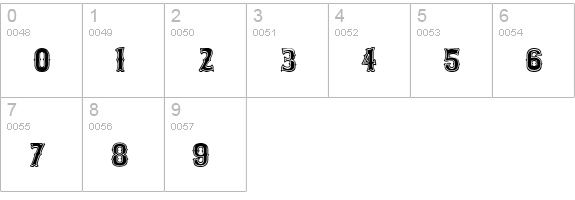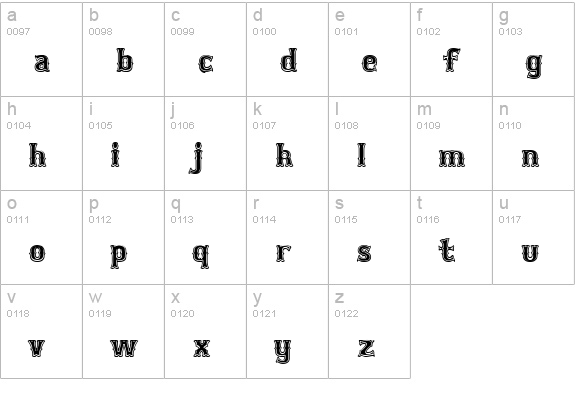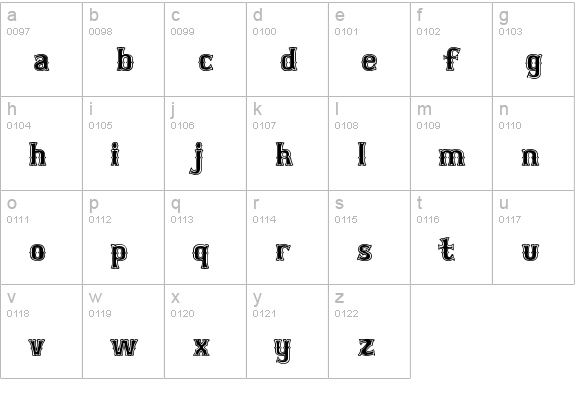
Bosox SemiBold Font Details
Bosox SemiBold is a sub-bold, structured variant in the Bosox typeface family \xE2\x80\x94 well suited to sub-headlines and emphasised passages.
Introducing Bosox SemiBold, the epitome of contemporary elegance and versatility in the world of typography. This stunning font exudes confidence, combining the perfect balance of sophistication and modernity to captivate any audience. Bosox SemiBold's strong and bold letterforms effortlessly command attention, making it the ideal choice for headlines, titles, and branding projects that require a touch of boldness. Its sleek and streamlined design allows for seamless integration into various design styles, whether it be for print or digital media. With its robust and sturdy appearance, Bosox SemiBold emanates a sense of reliability and trustworthiness, making it a perfect fit for corporate communications, packaging designs, and advertising campaigns. Its precise and well-defined letter shapes ensure legibility even at smaller sizes, ensuring that your message is communicated effectively to your audience. What sets Bosox SemiBold apart is its versatility. It effortlessly transitions from formal to informal contexts, making it equally suitable for both professional and creative projects. Its clean and contemporary aesthetic adds a touch of sophistication to any design, while still maintaining a sense of approachability and friendliness. And the best part? Bosox SemiBold is freely available to download at FontsMarket.com. This means that you have the opportunity to enhance your design projects with this remarkable font without any restrictions. Whether you're a professional designer looking to add a touch of elegance to your work or a hobbyist exploring the world of typography, Bosox SemiBold is the perfect companion to take your designs to the next level. Don't miss out on the opportunity to elevate your design projects with Bosox SemiBold. Download it for free at FontsMarket.com and let your creativity soar.